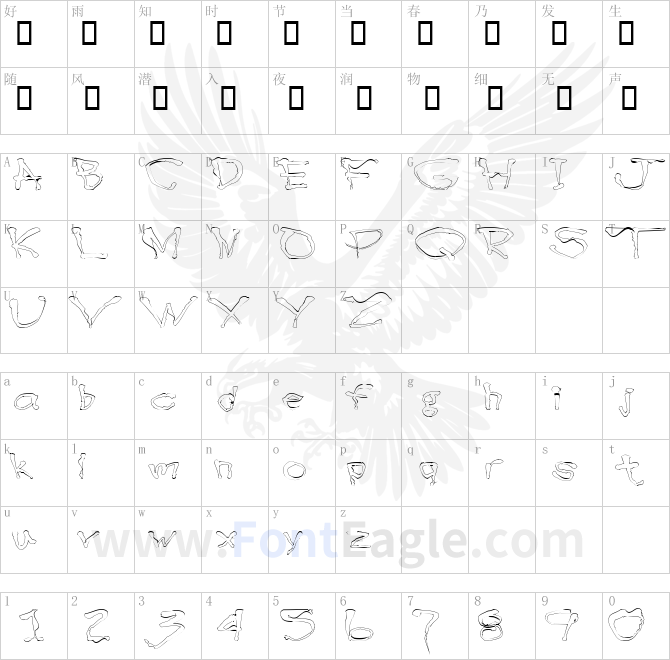
- Font name:BlottoooLightBeer
- Font Subfamily ID:BlottoooLightBeer
- Font Full Name:BlottoooLightBeer
- Font Version:1.0 of this less than Blottooo font
- Postscript:BlottoooLightBeer